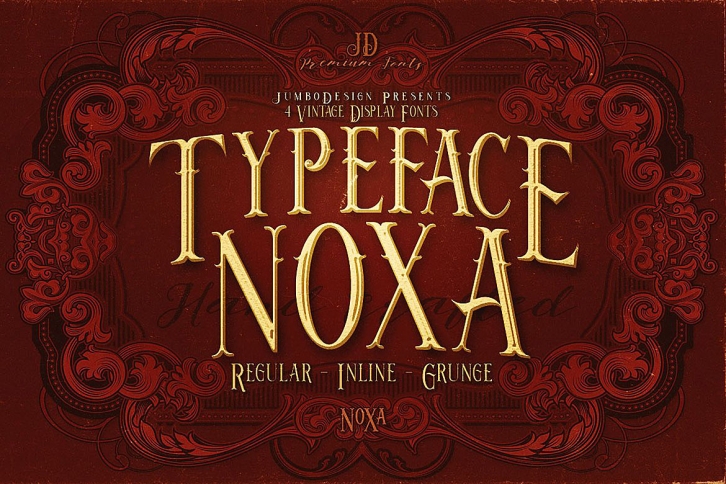
Noxa is a unique and ornamental display font, perfect for vintage or retro designs. This font comes in several different styles, making it a fully realized typeset that gives you the ability to customize your designs.